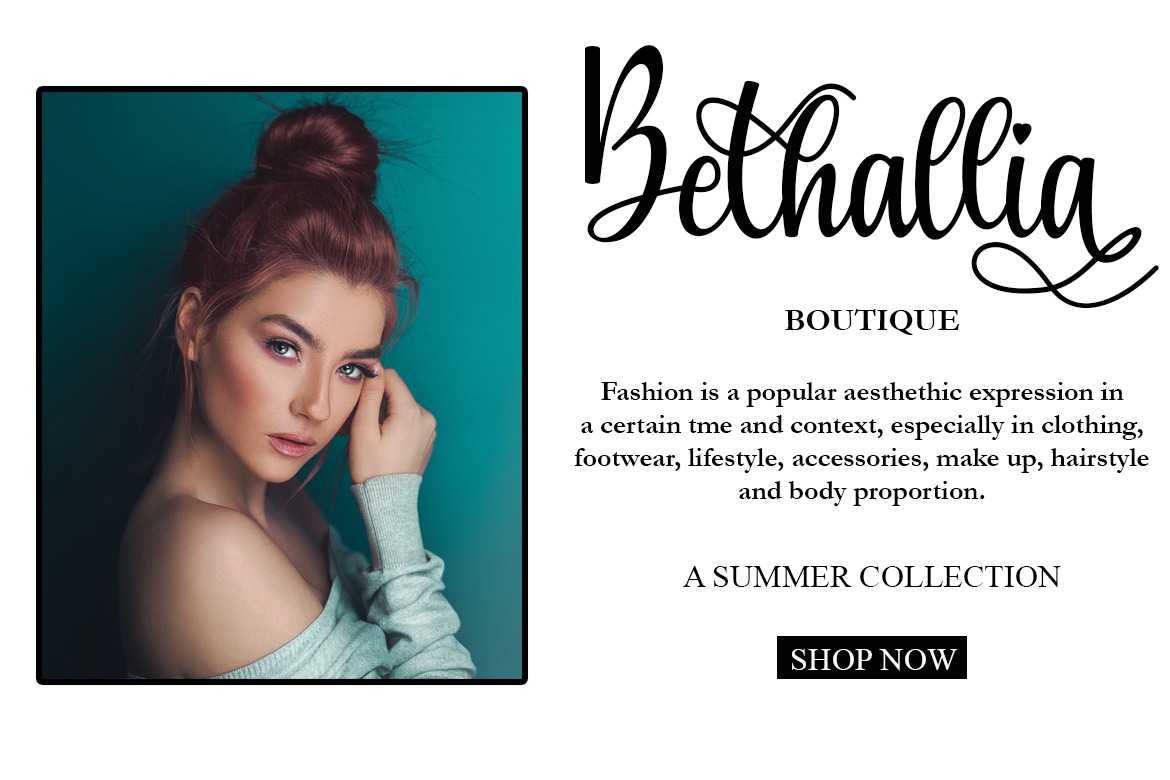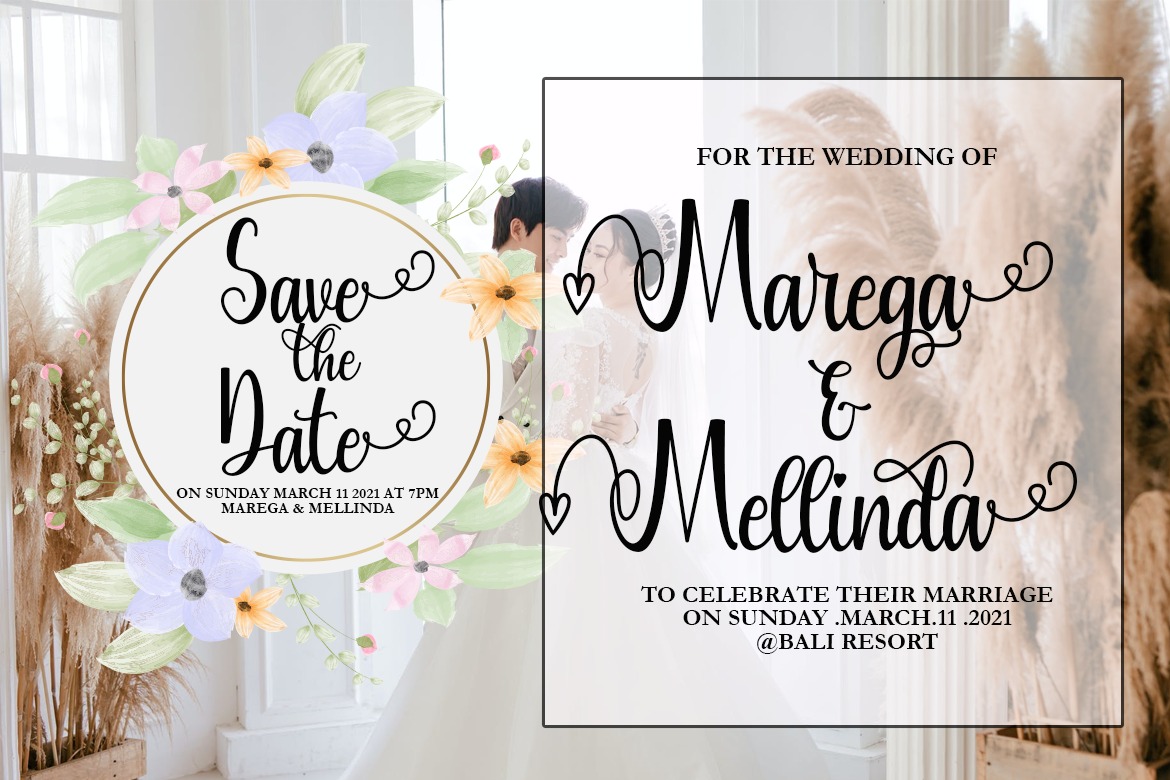
Majority Calligraphy Font
It’s cute script font crafted & designed by Supersemar Letter. This font is sweet and elegant in the same time. Not too thin and not too thick, balanced and varied, Majority was designed to enhance the beauty of your projects. This font is PUA encoded which means you can access all of the glyphs and swashes with ease!